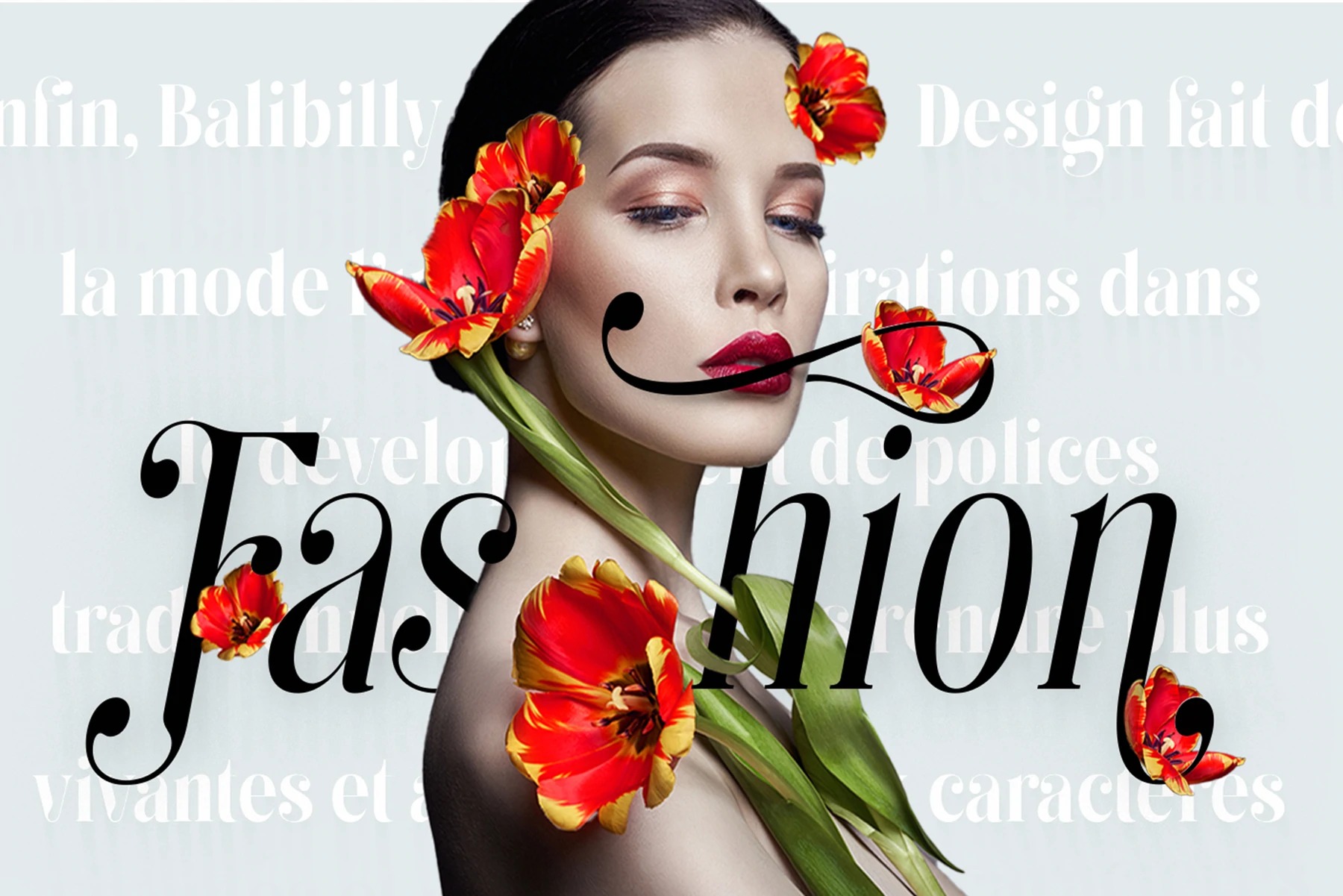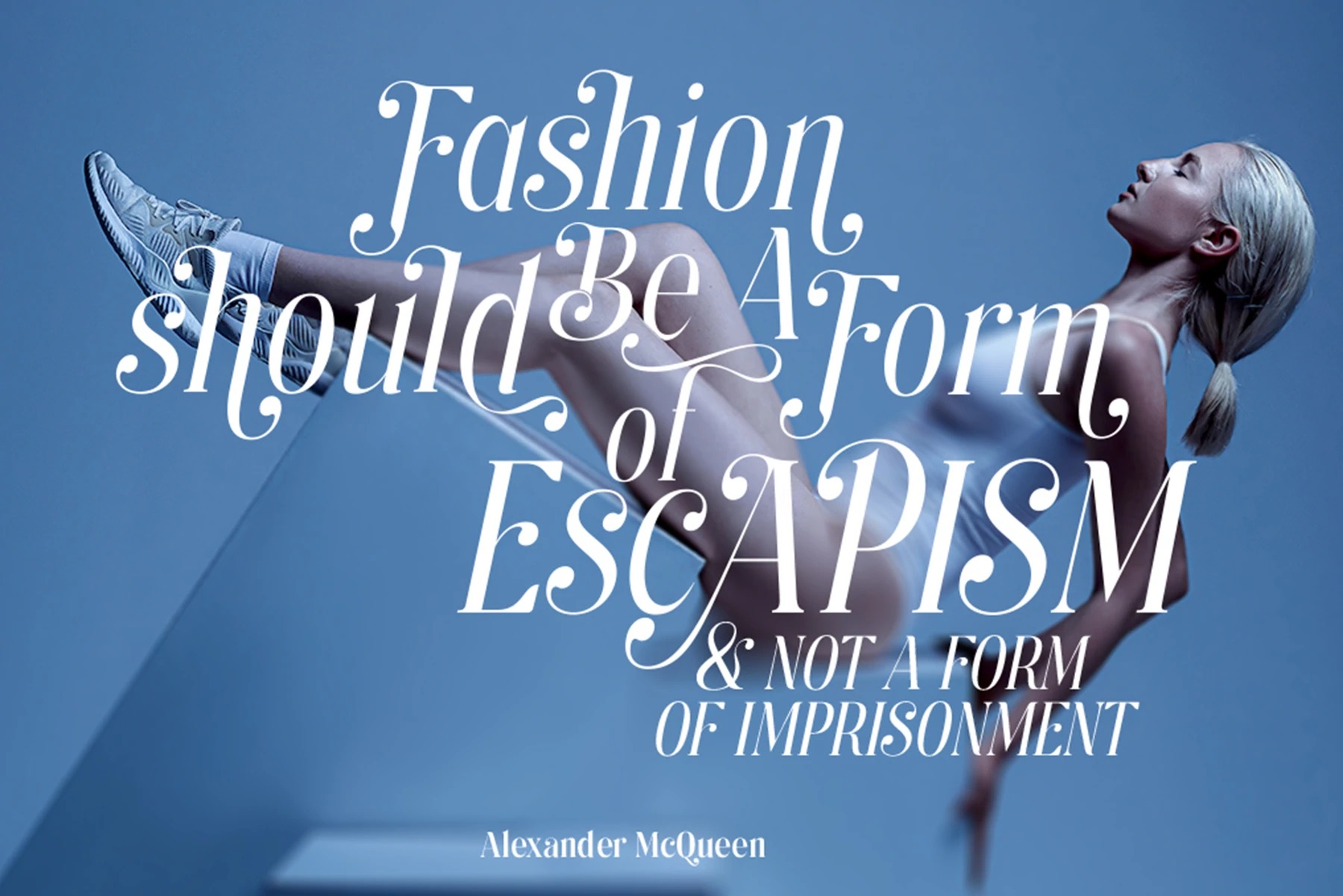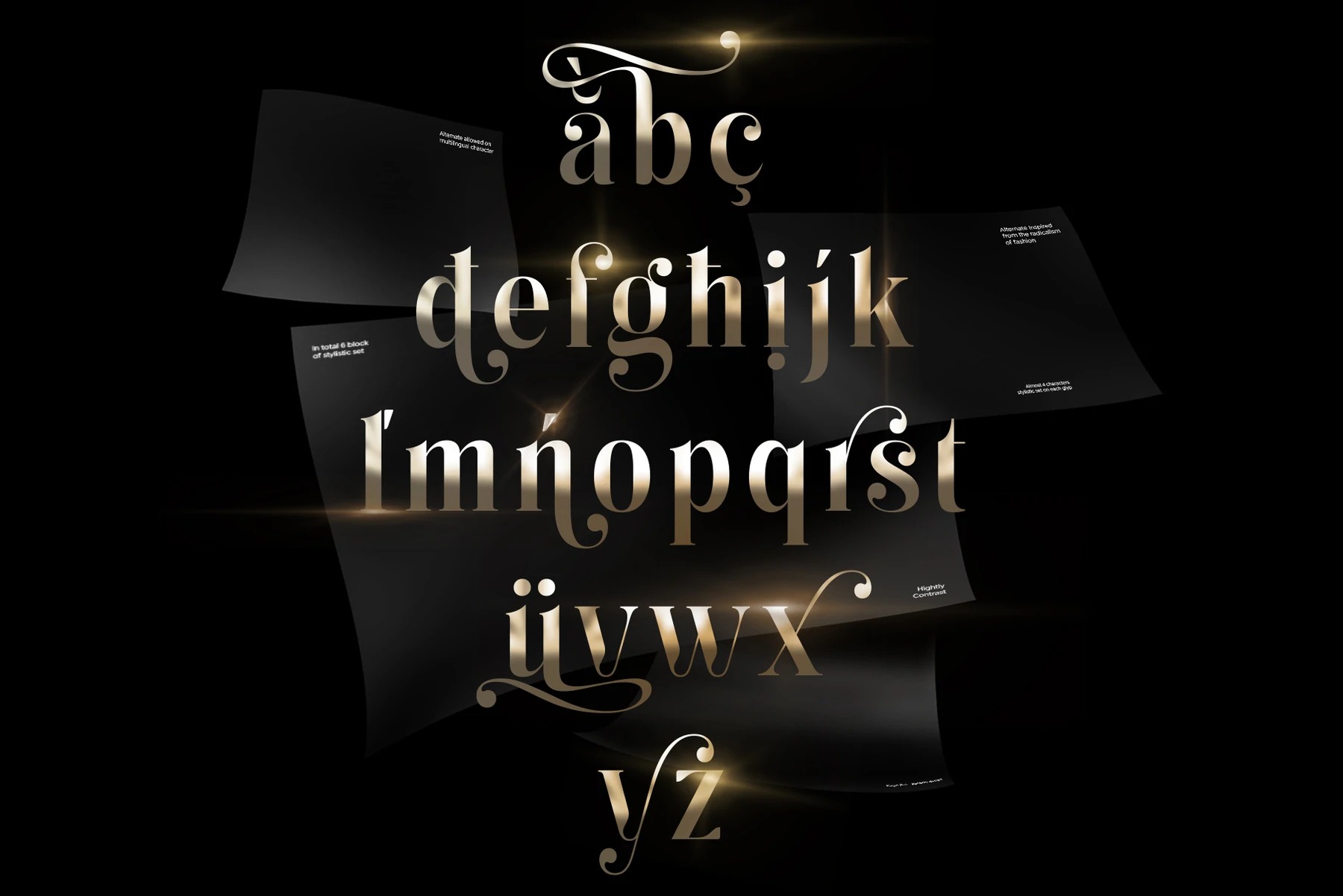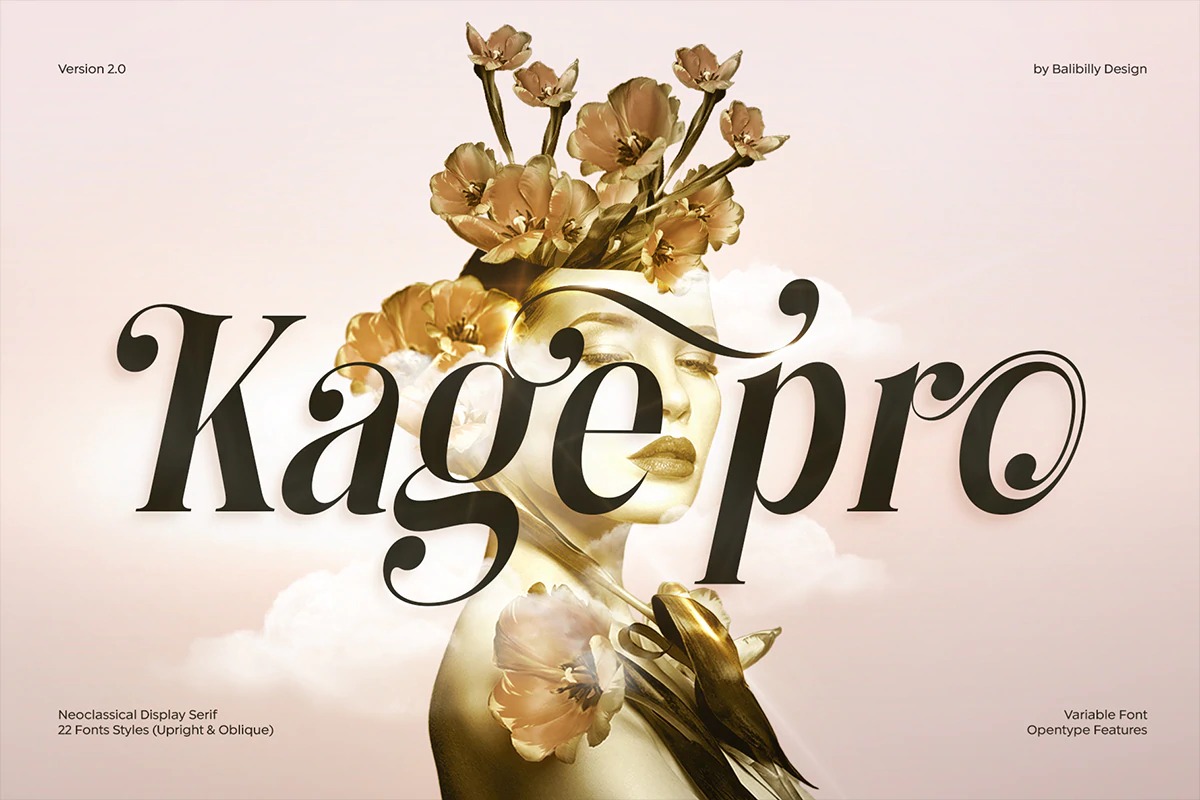
Kage Pro Font
Kage Pro Serif Font
This is a stylish font manufactured by Balibilly Design. It has a modern and retro look – clear, modern and fun. Kage Pro is designed to visualize a costly and exclusive image of a thing, product, world clothing brand, famous fashion magazine, etc. The modern transitions of each letterform are softer, so when repositioning and escalating the size of this font, it will remain beautiful without injuring other elements. So, Kage Pro is a bold choice on headlines and more prominent media with a portion of 50% even more.